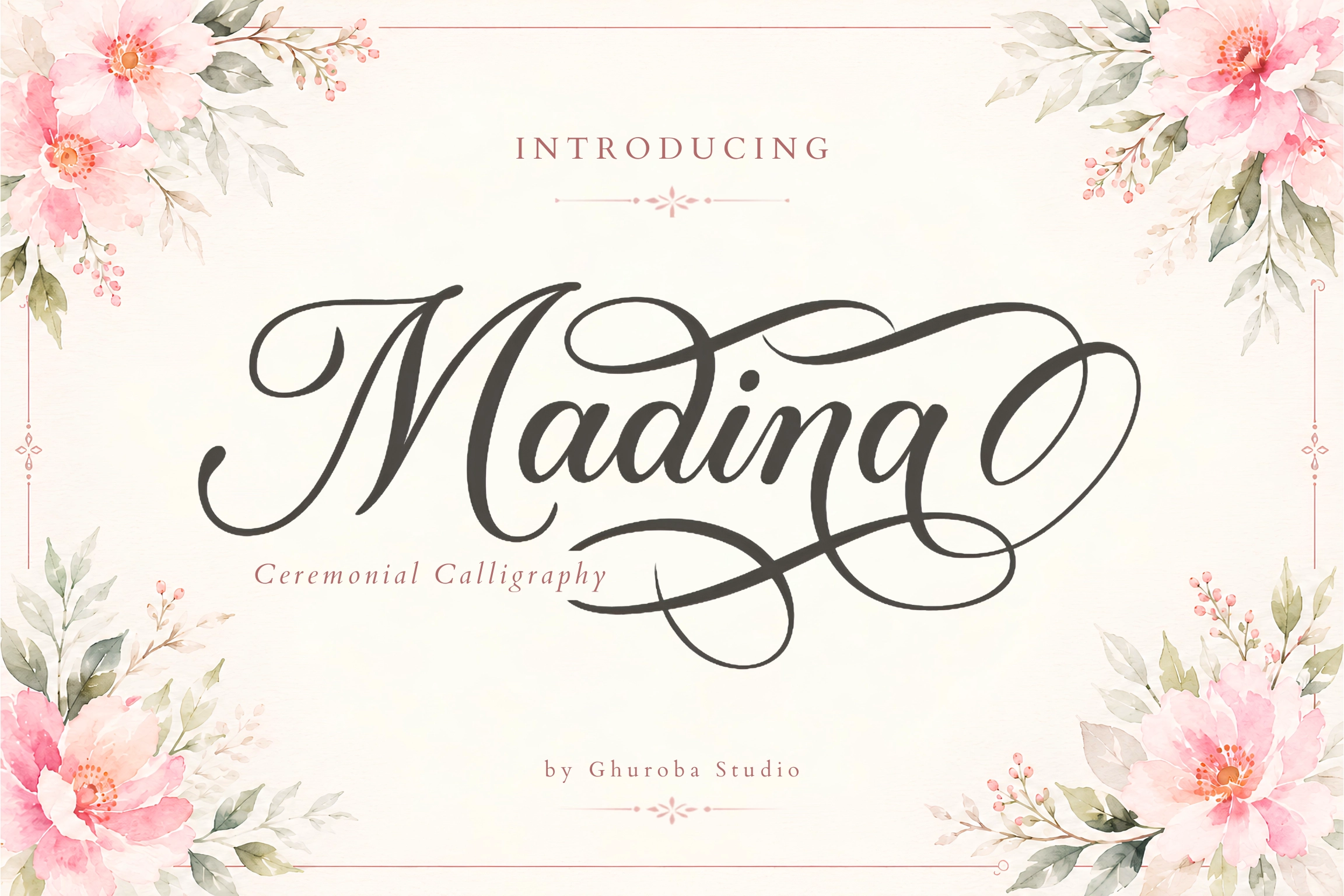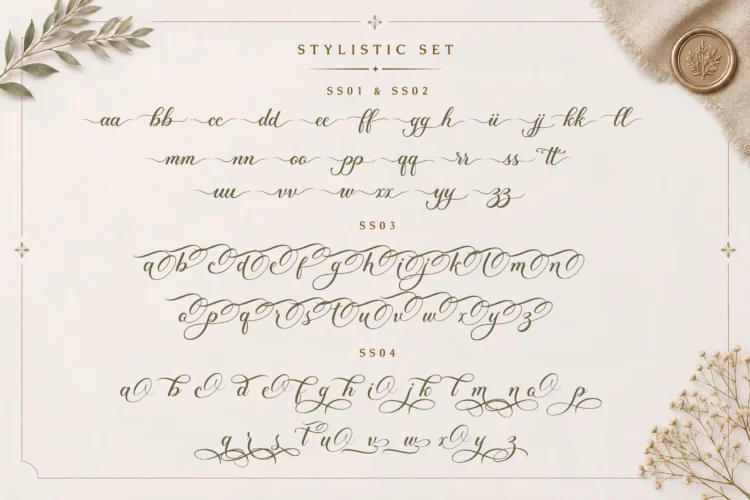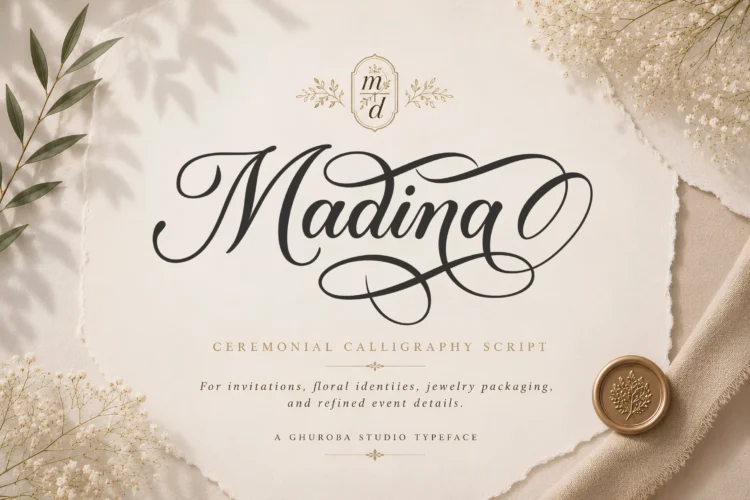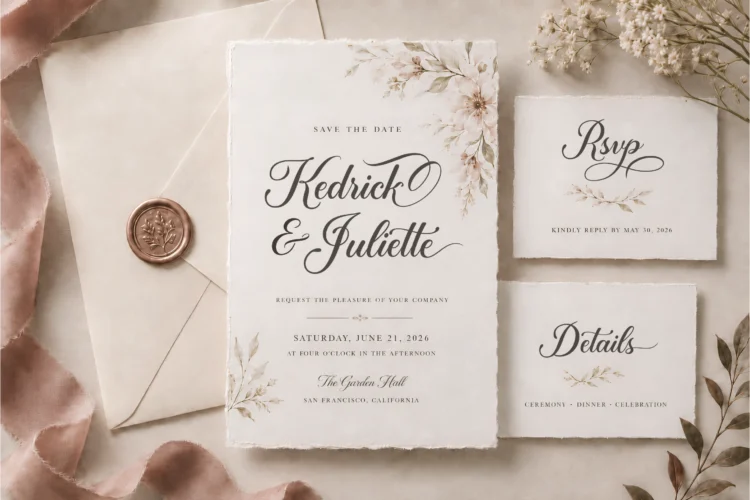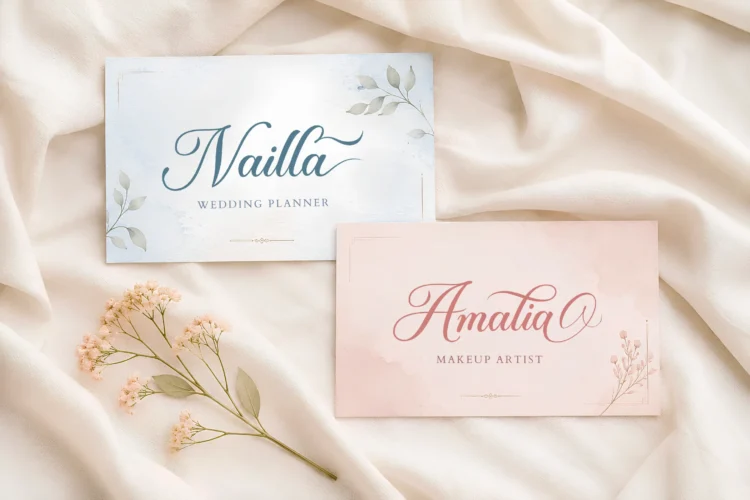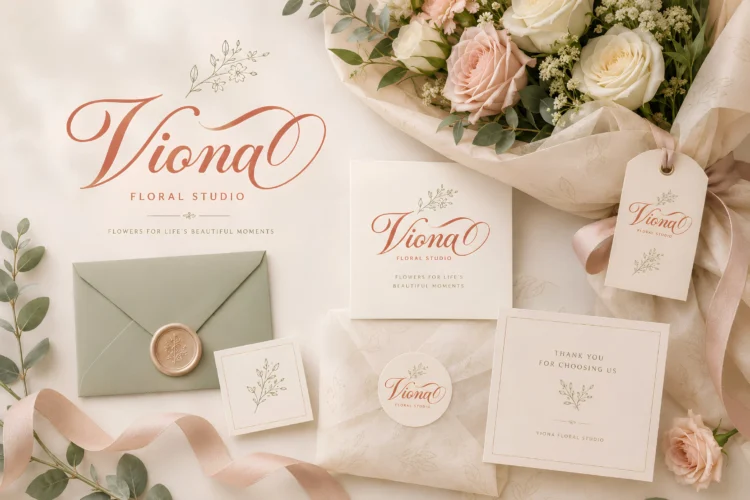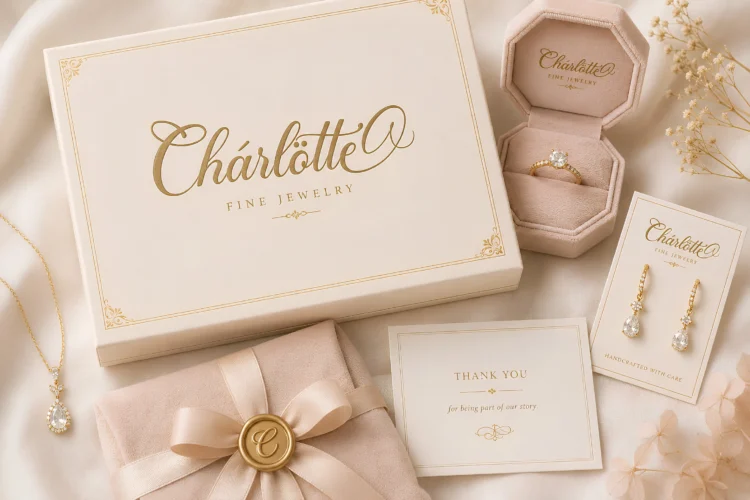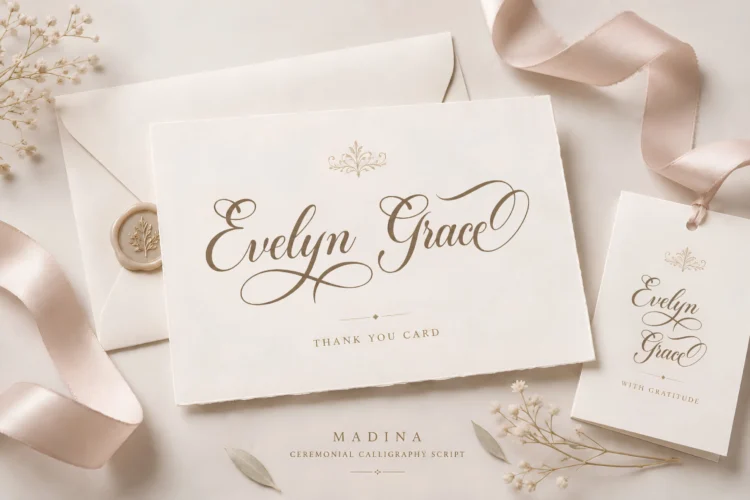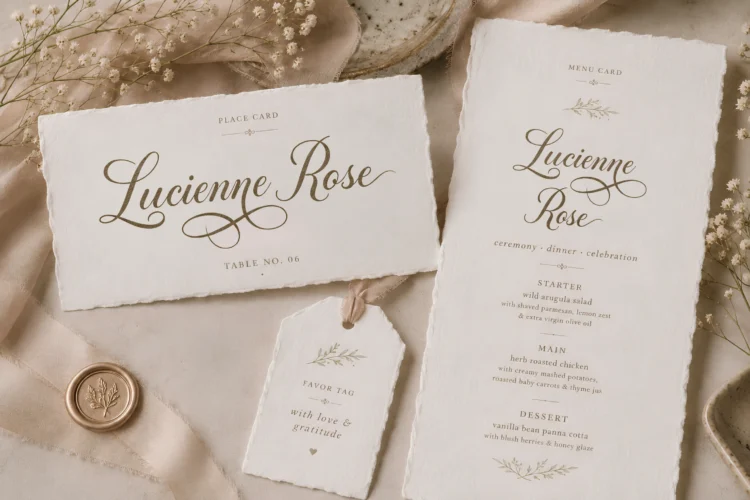
Madina calligraphy script font hero preview for wedding invitations, branding, and refined event stationery.
Madina wedding invitation script font preview with refined bridal stationery and ceremonial paper details.
Madina font used in a romantic brand identity and business card preview for wedding planners and beauty brands.
Madina florist logo font preview for Viona, a refined floral brand identity with ceremonial calligraphy.
Madina jewelry packaging font preview for Charlotte with refined calligraphy on boutique jewelry branding.
Madina thank you card font preview for Evelyn Grace with boutique gift stationery and refined calligraphy.
Madina place card and menu font preview for Lucienne Rose with refined wedding dinner stationery.
Madina botanical monogram font preview with ceremonial seal, floral emblem, and refined calligraphy mark.
Madina character set preview with uppercase, lowercase, numbers, punctuation, and ligatures.
Madina font alternates, and swashes preview showing decorative calligraphy features.
Madina closing preview for a ceremonial calligraphy script font used in refined event branding.
Madina Regular
Madina Slant
A calligraphy script font for romantic brands, invitation systems, and crafted event visuals.
Madina is a ceremonial calligraphy script for wedding studios, florist identities, jewelry brands, boutique packaging, and event-led visual systems.
Built with graceful swashes, decorative letterforms, and a flowing rhythm, Madina works well as a wedding font, invitation font, logo font, branding font, and packaging font. Use it for wedding invitations, bridal stationery, florist logos, bouquet tags, jewelry cards, thank you cards, monogram-style marks, and social media graphics that need a personal but formal handwritten presence.
More than a decorative script font, Madina helps create a complete brand atmosphere: a refined wedding studio, a romantic florist label, a graceful jewelry packaging system, or a boutique product line with a crafted calligraphy accent.
Perfect For
• Wedding invitations and stationery
• Bridal brand identities
• Florist logos and bouquet tags
• Jewelry packaging and brand cards
• Boutique product labels
• Greeting cards and thank you cards
• Event branding and ceremony visuals
• Monogram-style logo marks
Features
• Madina Regular and Madina Slant styles
• Uppercase and lowercase letters
• Numerals and punctuation
• Ligatures and stylistic sets
• OpenType features
• PUA encoded characters
Madina gives designers a graceful calligraphy voice for building wedding brands, romantic identities, florist visuals, jewelry packaging, and boutique product worlds with ceremony and emotional presence.
Madina | Ceremonial Calligraphy Script